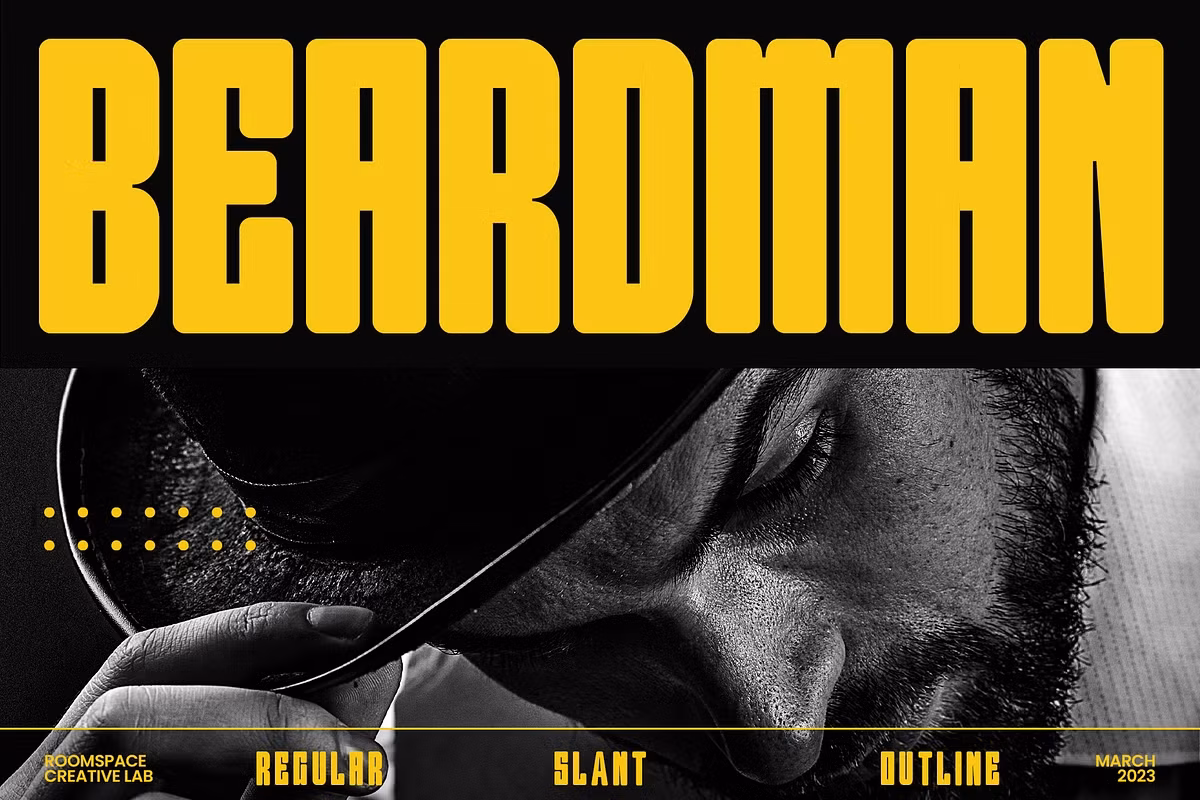
Beardman - Headline Condensed Font Free Download
Beardman – Headline Condensed Font Free Download
Beardman – Headline Condensed Font Free Download is a bold, narrow typeface crafted to command attention in headlines, posters, banners, and impactful branding projects. With its tall, compact letterforms and modern edge, Beardman is perfect for designs that need to be loud, clear, and stylish without taking up too much space.
Designed with sharp precision and a slightly rugged personality, Beardman – Headline Condensed Font Free Download adds a bold statement to everything from editorial layouts to streetwear labels. Its condensed style makes it especially effective for high-impact messaging where space is limited but visual power is essential.